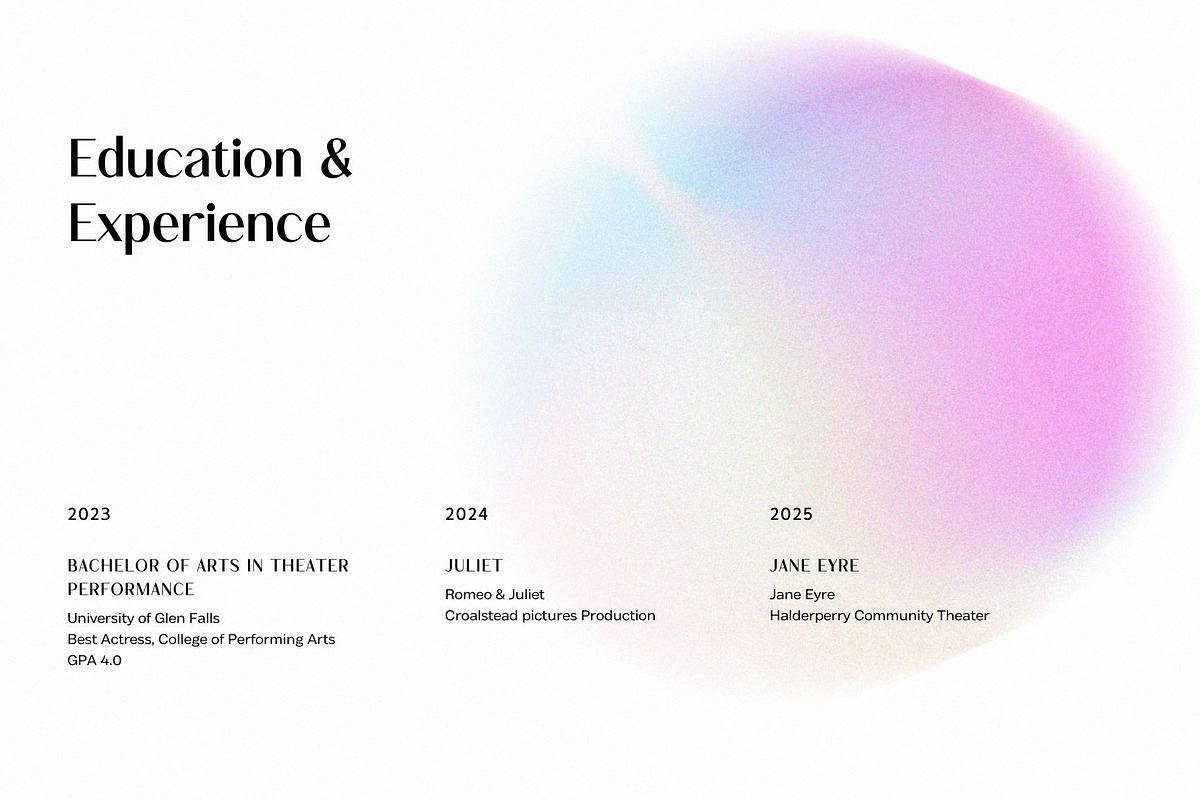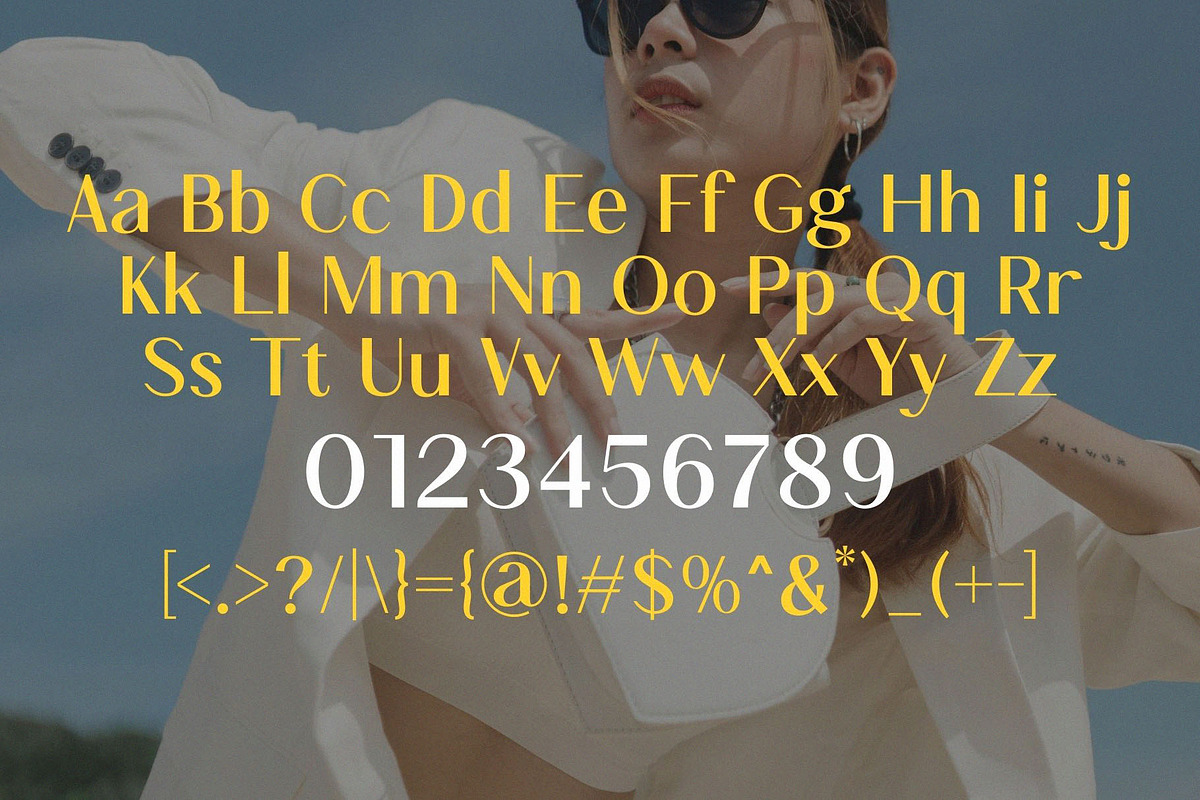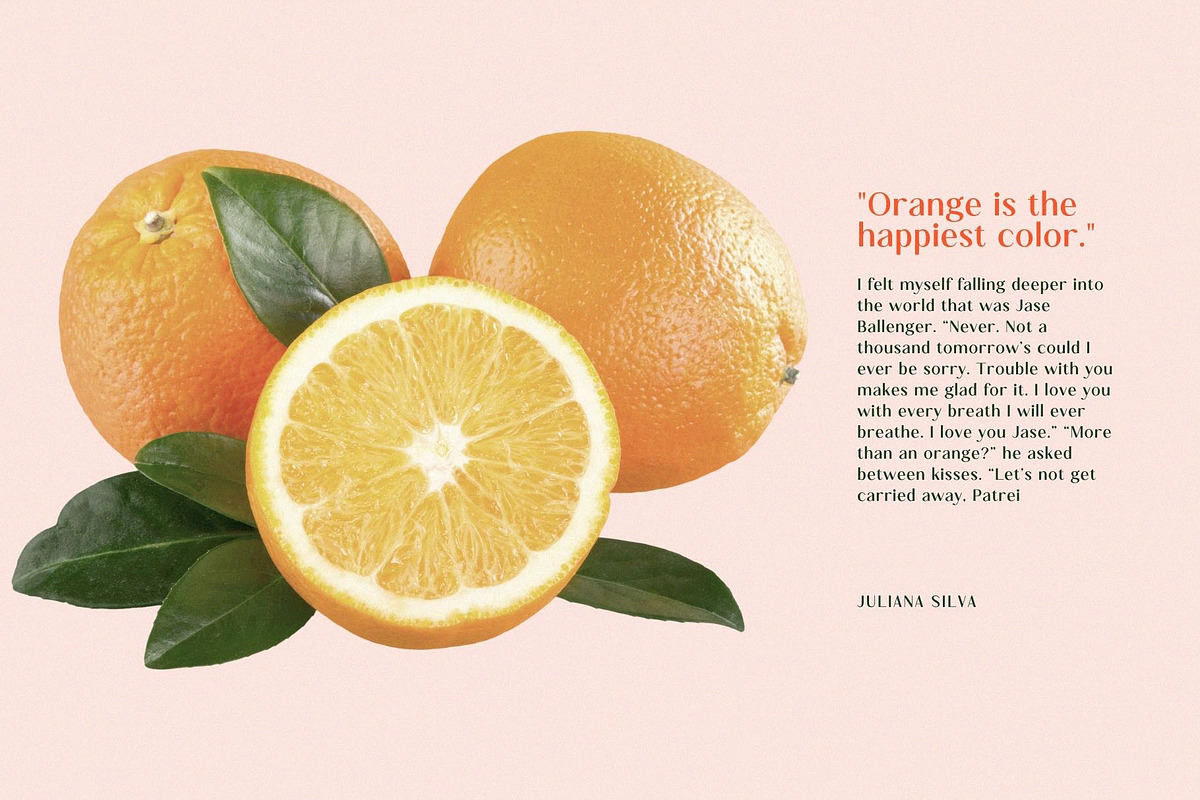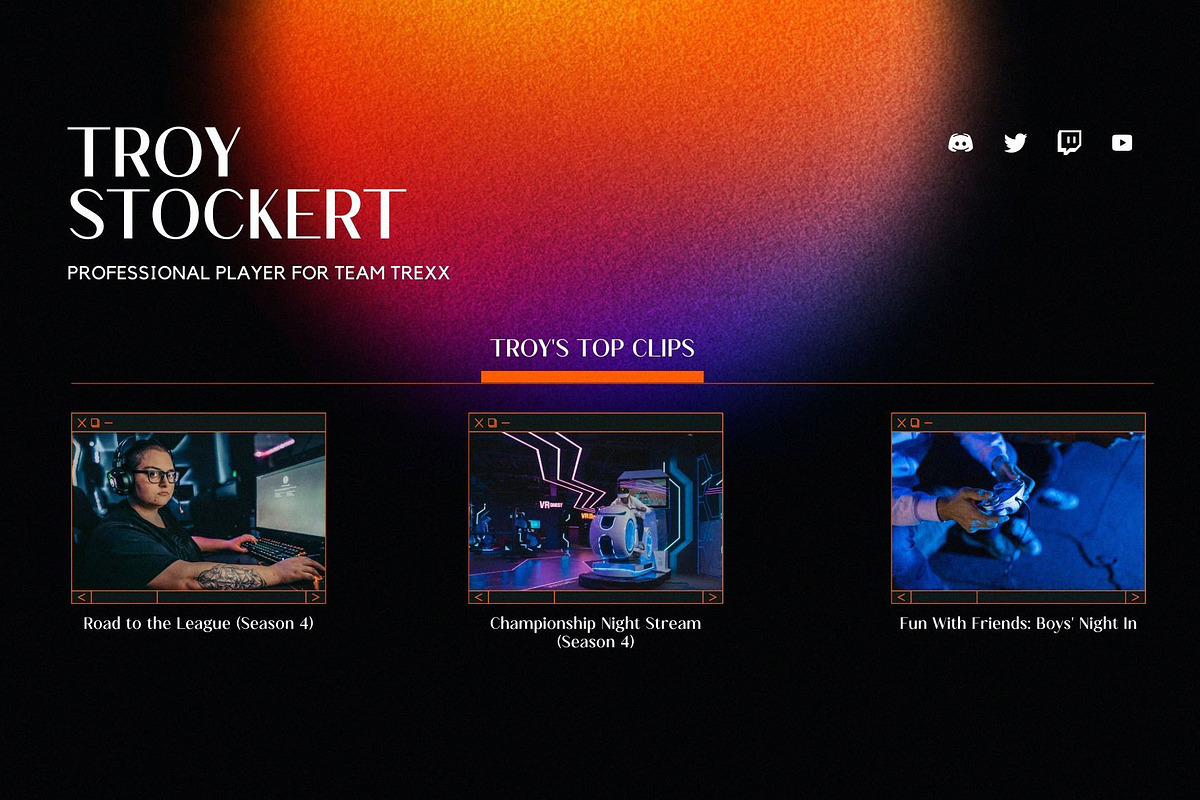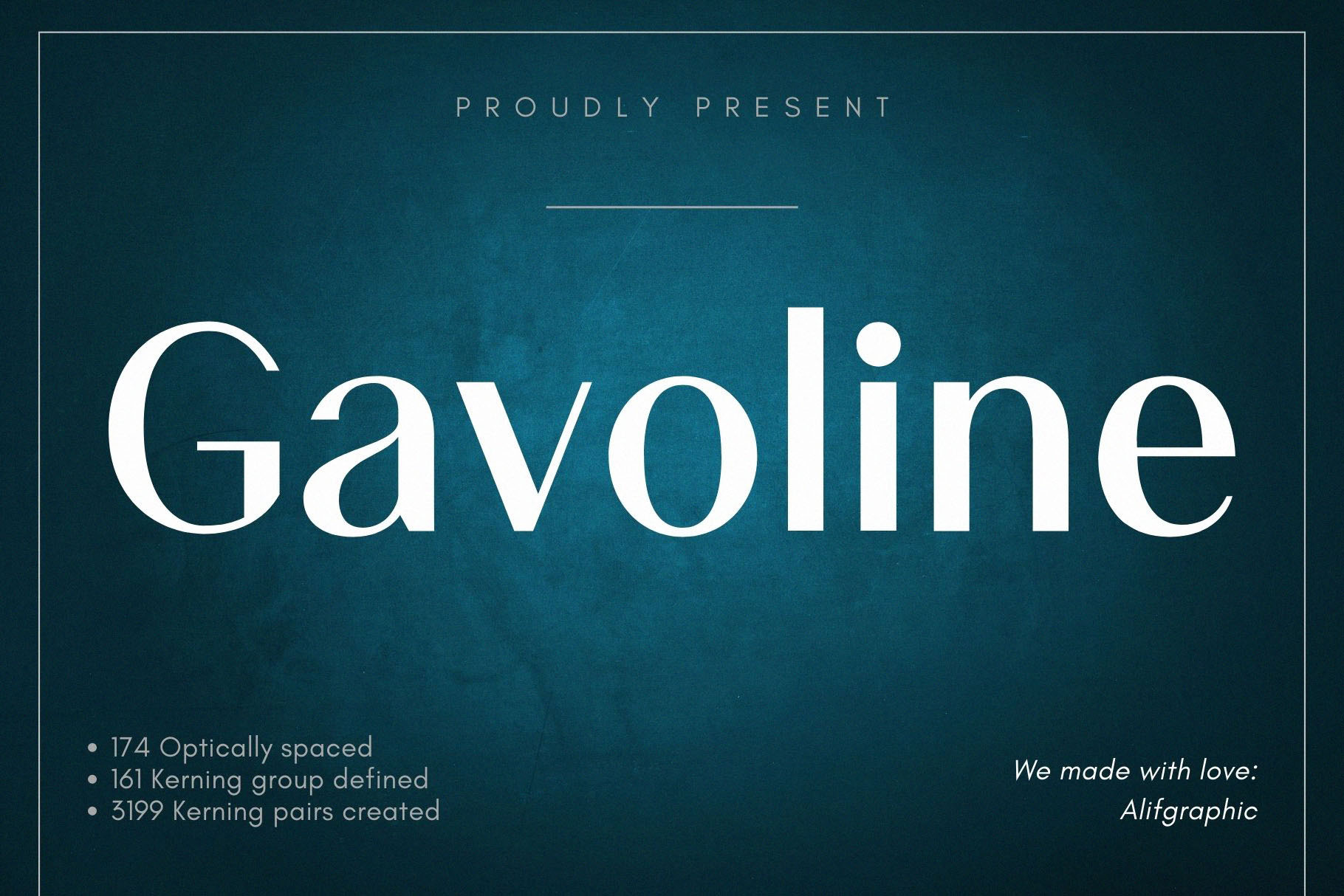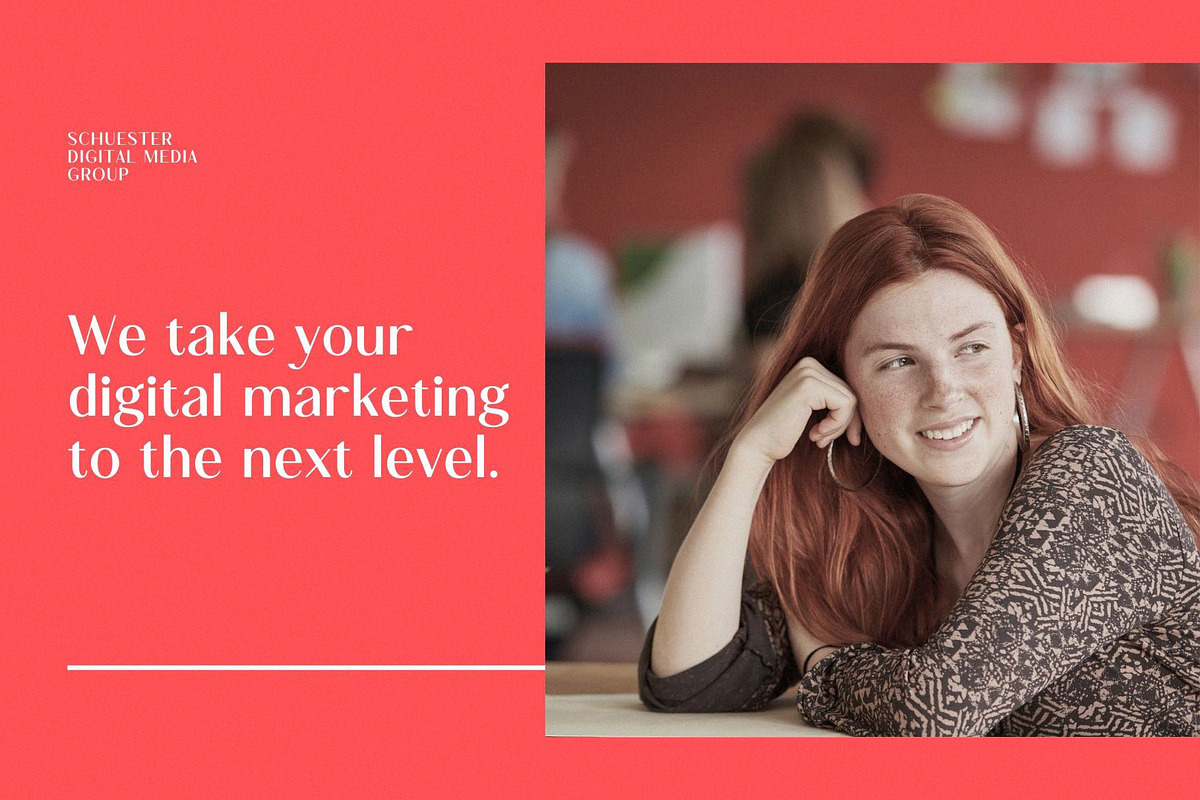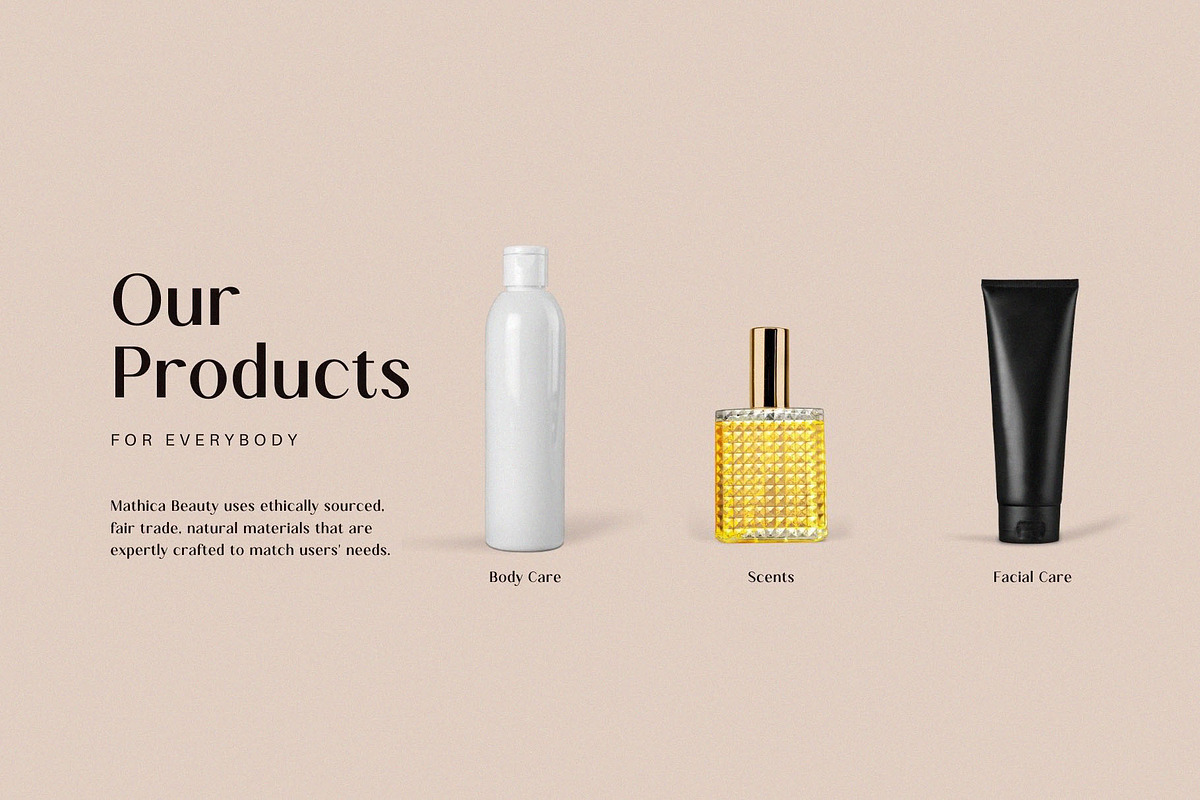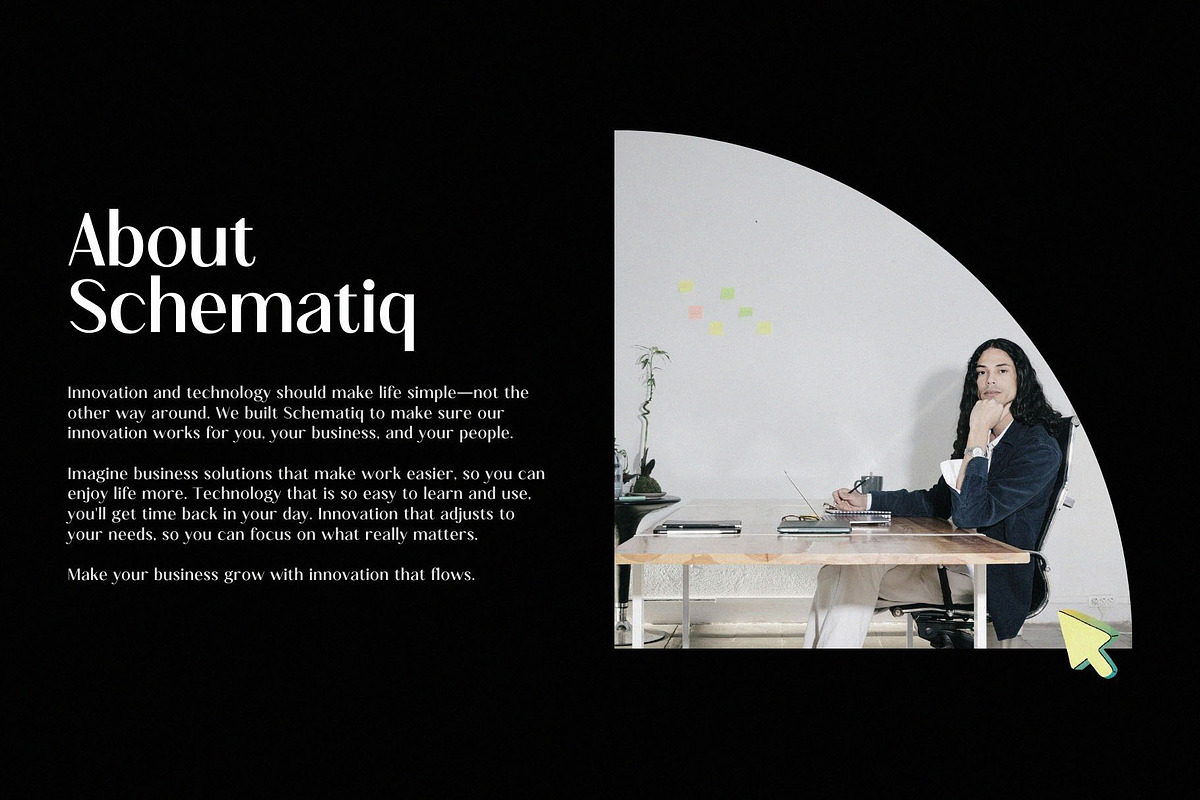
Gavoline-Modern Sans Typeface
Introducing 'Gavoline' Font:
Introducing "Gavoline," an elegant and bold serif font that will capture your heart with its incredibly versatile style. Embrace its timeless charm and use it to craft stunning wedding invitations, beautiful stationery art, eye-catching social media posts, and much more. Let Gavoline be your go-to choice for adding a touch of sophistication and boldness to your creative projects. Whether it's a formal event or a social media campaign, this font is here to elevate your designs and make a lasting impression.
Ideal for:
- Modern Designs
- Beauty and Fashion
- Elegant Creations
- Social Media Designs
- Ready for Creative Expression
- Immaculately Crafted Letters